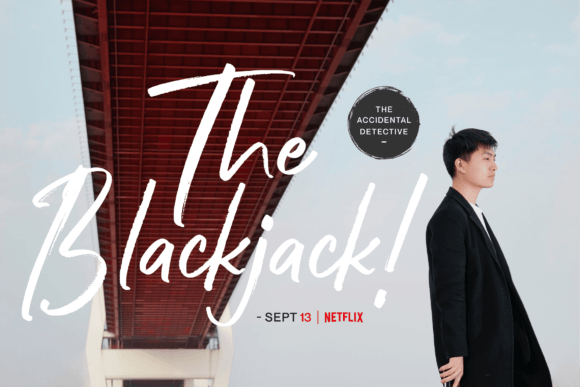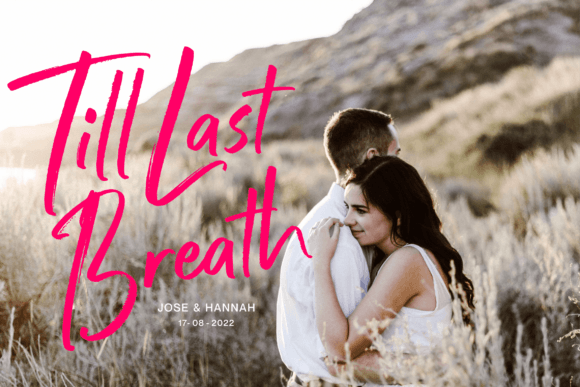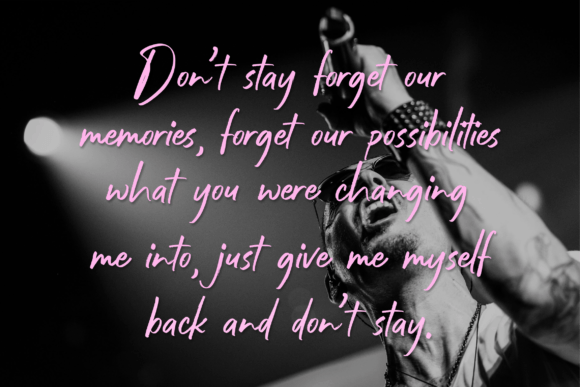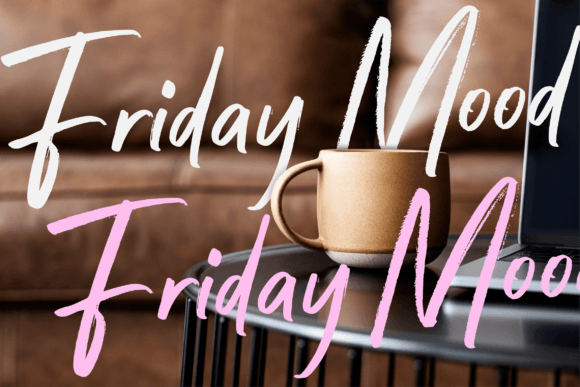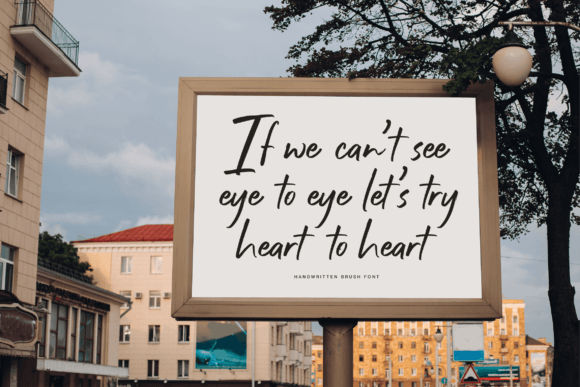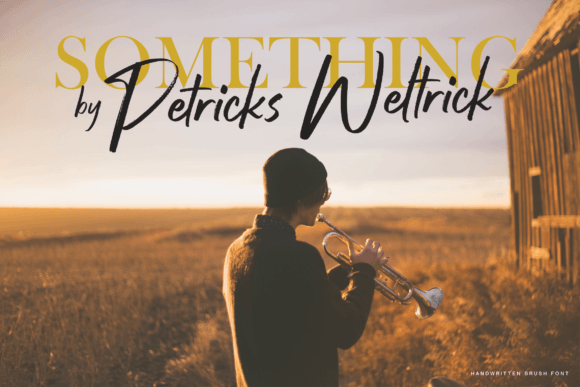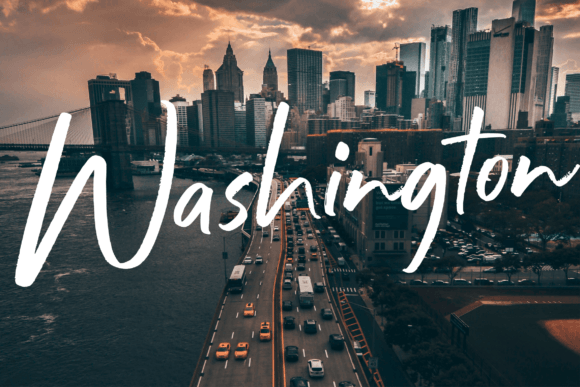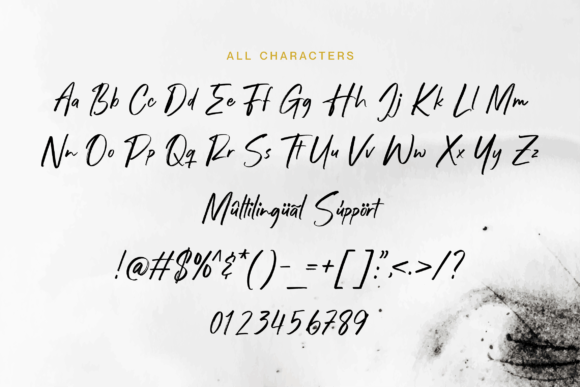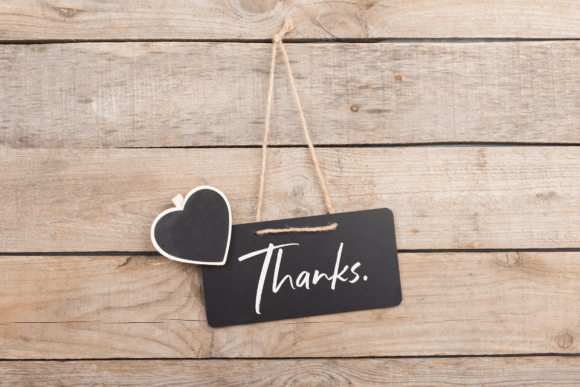
Franksthone Font
About Franksthone Font
“Franksthone Font: Charismatic Handwritten Brush Script
Introducing Franksthone, a handwritten brush script designed to infuse charm into your projects. Whether it’s quotes, packaging, or any other creative endeavor, this font is crafted to deliver the message you desire with charisma and style.
More than just a font, Franksthone is a design asset that brings a unique blend of handwritten elegance and brush script dynamics to your projects. Its carefully crafted strokes and fluid design make it versatile for a variety of applications.
The charm of Franksthone shines through in its ability to convey a range of emotions and styles. Whether you’re aiming for a rustic, playful, or sophisticated look, Franksthone adapts effortlessly to enhance the visual appeal of your designs.
For quotes and inspirational messages, Franksthone becomes a powerful tool, adding a touch of authenticity and personality to your text. The font’s handwritten brush script style creates a dynamic and engaging visual experience.
In packaging design, Franksthone serves as a charismatic choice, contributing to a memorable and stylish brand identity. Its fluid and expressive design elements make it suitable for conveying a sense of energy and movement.
Franksthone’s versatility extends to various design projects, making it suitable for a wide range of creative applications. Whether you’re working on digital graphics, print materials, or any other project, Franksthone adds a distinctive touch.
In conclusion, Franksthone is more than just a font; it’s a design companion that brings charismatic handwritten brush script elegance to your creative toolkit. Let Franksthone be the brushstroke that enhances the beauty of your projects. Embrace the versatility and dynamic charm of Franksthone, and watch as it transforms your ideas into visually enchanting experiences.”